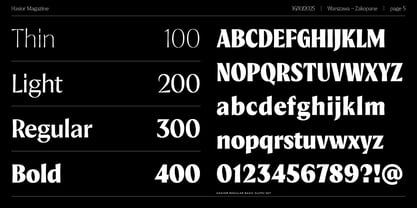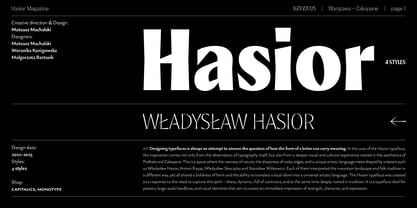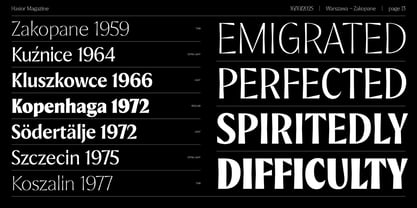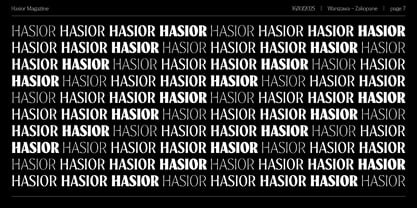
Hasior
by Machalski
The Hasior Font Family was designed by Mateusz Machalski and published by Machalski. Hasior contains 4 styles and family package options. More about this family
Designing typefaces is always an attempt to answer the question of how the form of a letter can carry meaning. In the case of the Hasior typeface, the inspiration comes not only from the observation of typography itself, but also from a deeper visual and cultural experience rooted in the aesthetics of Podhale and Zakopane. This is a space where the rawness of nature, the sharpness of rocky edges, and a unique artistic language meetshaped by creators such as Władysław Hasior, Antoni Rząsa, Władysław Skoczylas and Stanisław Witkiewicz. Each of them interpreted the mountain landscape and folk tradition in a different way, yet all shared a boldness of form and the ability to translate a local idiom into a universal artistic language. The Hasior typeface was created as a response to the need to capture this spirit – sharp, dynamic, full of contrasts, and at the same time deeply rooted in tradition. It is a typeface ideal for posters, largescale headlines, and visual identities that aim to create an immediate impression of strength, character, and expression. The project was creatively directed by Mateusz Machalski, with contributions from Weronika Kanigowska and Małgorzata Bartosik.